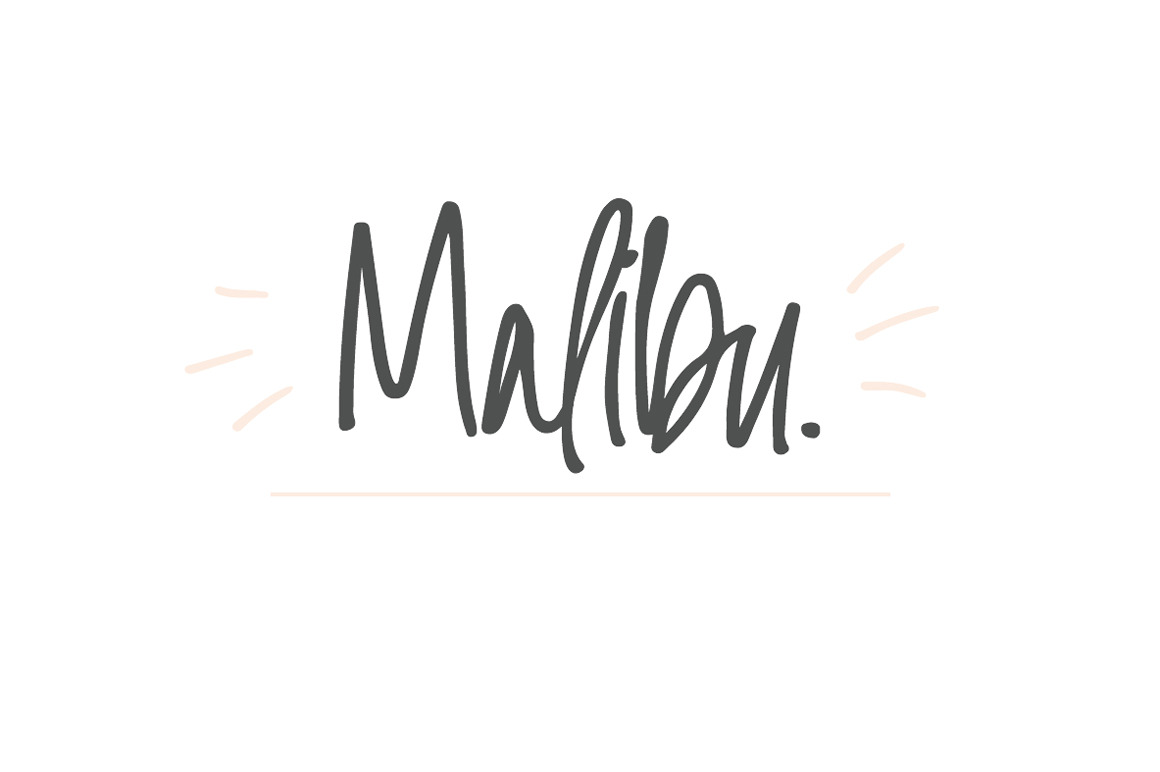
Malibu | A Handwritten Font
Malibu is a sweet handwritten font that is perfect for logos, quotes, invitations, and more! I like to use Malibu for web headers (as can be seen in image 6) – it adds a really cool handmade touch to your sites while also looking beautiful and completely unique!
- Malibu Alternates (for a whole different set of letters + stylistic alternates)
- Malibu Doodles (decorative elements A-Z)
There are also ligatures for every double letter, giving you even more stylistic options to make your work look completely handmade!